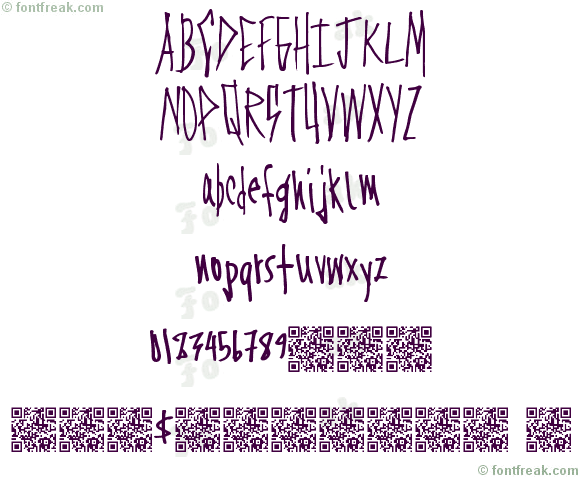
FirstAvenue
About FirstAvenue
FirstAvenue by Xerographer Fonts is a delightful handwritten font that exudes a casual and approachable vibe. With its playful curves and slightly irregular strokes, this font captures the essence of personal expression, making it perfect for various creative projects. The strokes feature a medium weight, lending a sense of warmth and friendliness, while the slight contrast between thick and thin lines adds an engaging visual interest. The spacing is thoughtfully designed, allowing for readability without sacrificing its artistic flair.
FirstAvenue is an ideal choice for a variety of applications. It shines in wedding invitations, where its charming style can beautifully convey love and joy. It is also a fantastic option for restaurant menus, creating an inviting atmosphere that encourages diners to explore the offerings. Additionally, this font works well in crafting eye-catching movie posters, where its unique character can draw attention and pique interest. Content creators looking to enhance their social media graphics will find FirstAvenue a perfect match for personal branding, giving their posts a distinctive touch.
Targeting graphic designers, small business owners, and content creators, FirstAvenue offers a refreshing alternative to standard typefaces. Its friendly appeal can help brands connect with their audiences on a more personal level. As a freeware font, it provides accessibility for those who may be working within a budget but still desire a high-quality design element.
What sets the FirstAvenue font apart is its ability to blend creativity with functionality. Its handwritten style adds a personal touch that can elevate any project, making it both memorable and engaging. For anyone looking for a versatile and unique typeface, the FirstAvenue font free download is an excellent choice to consider.